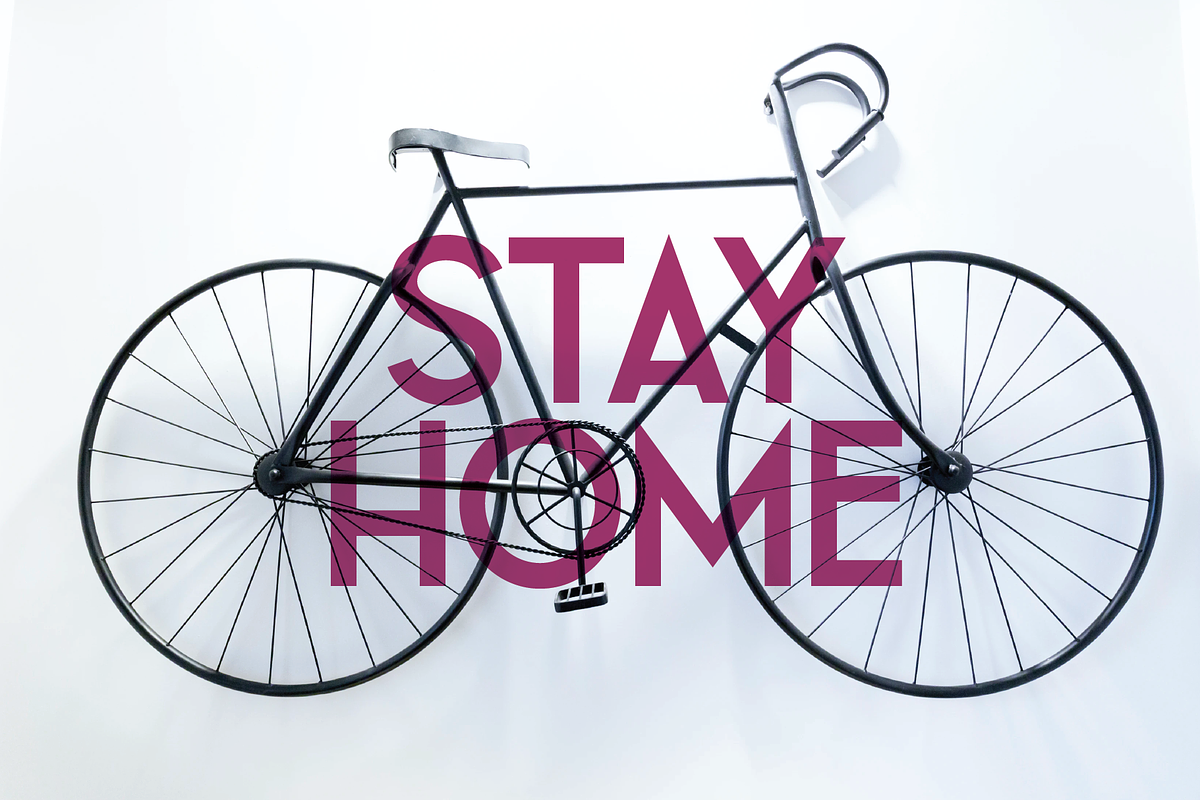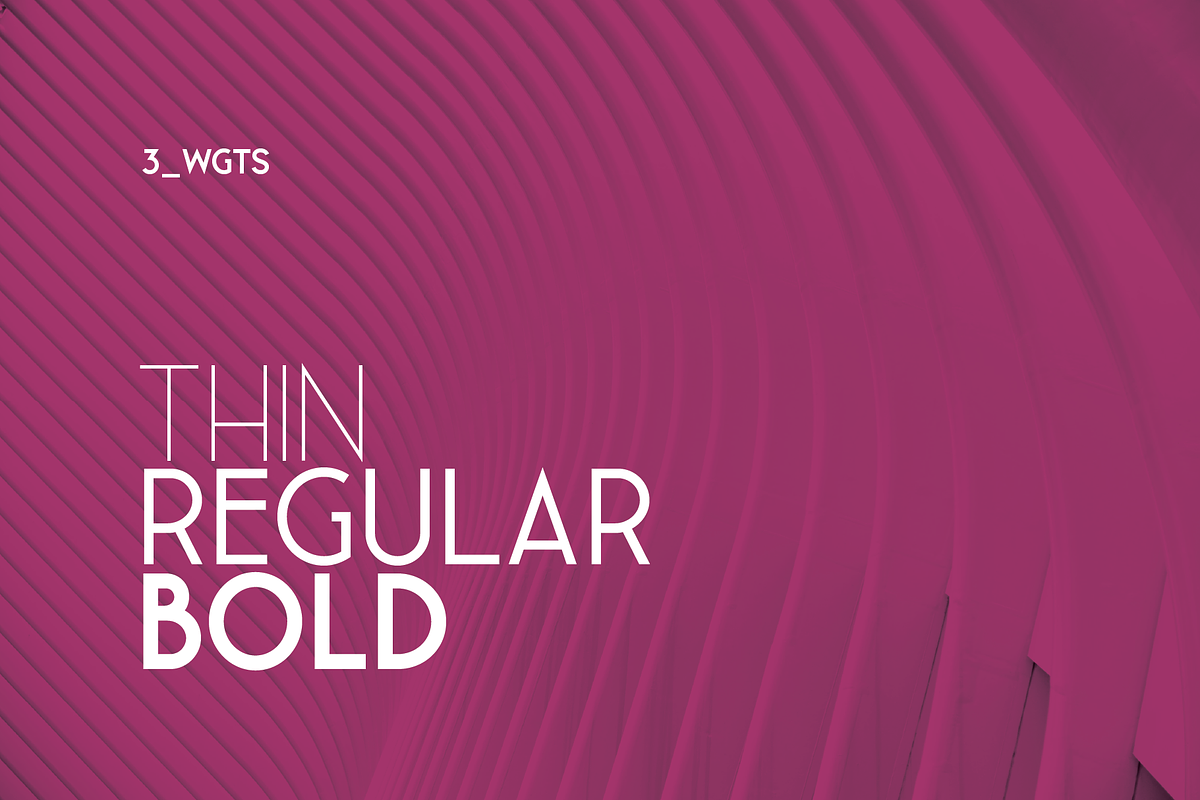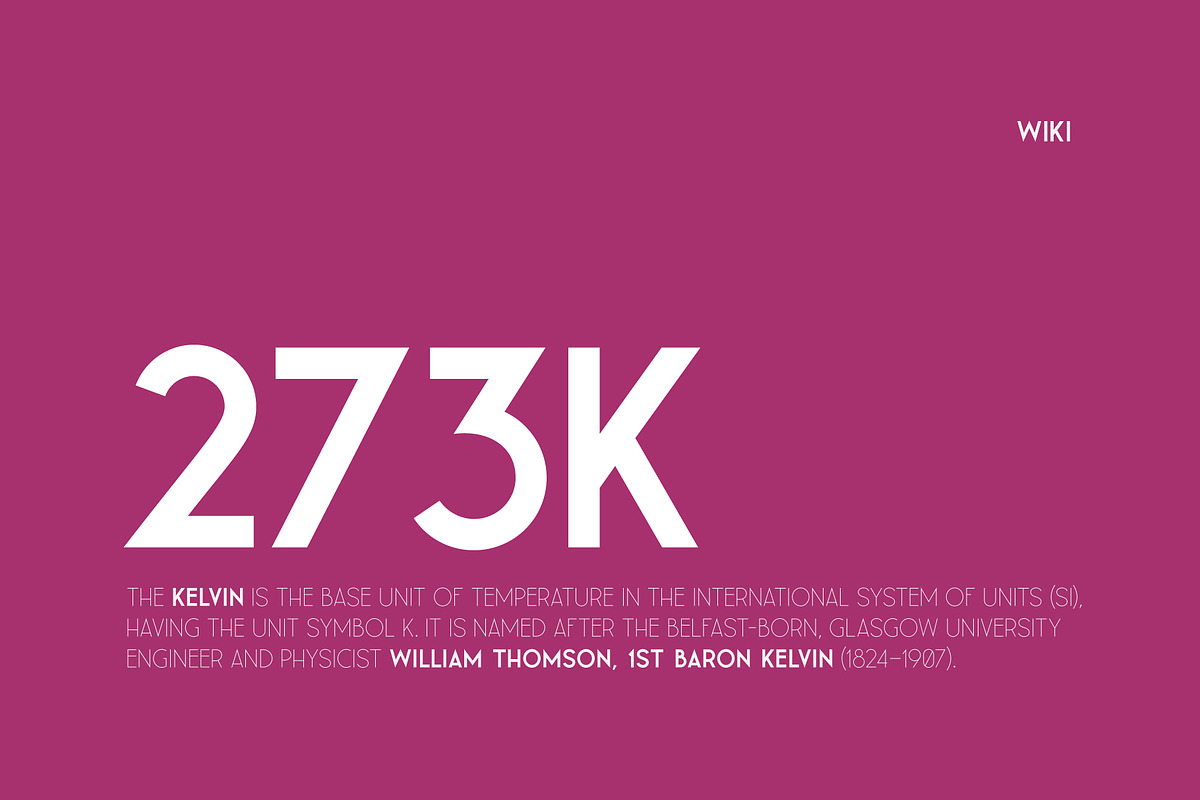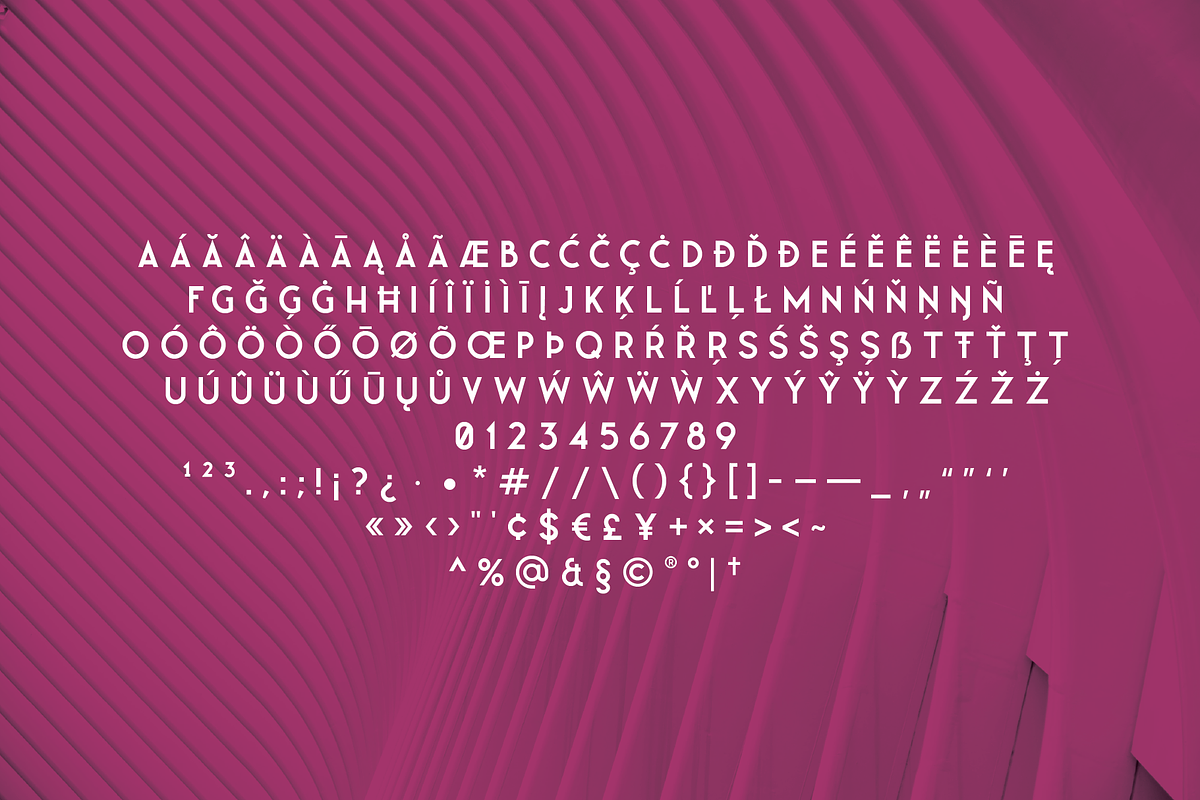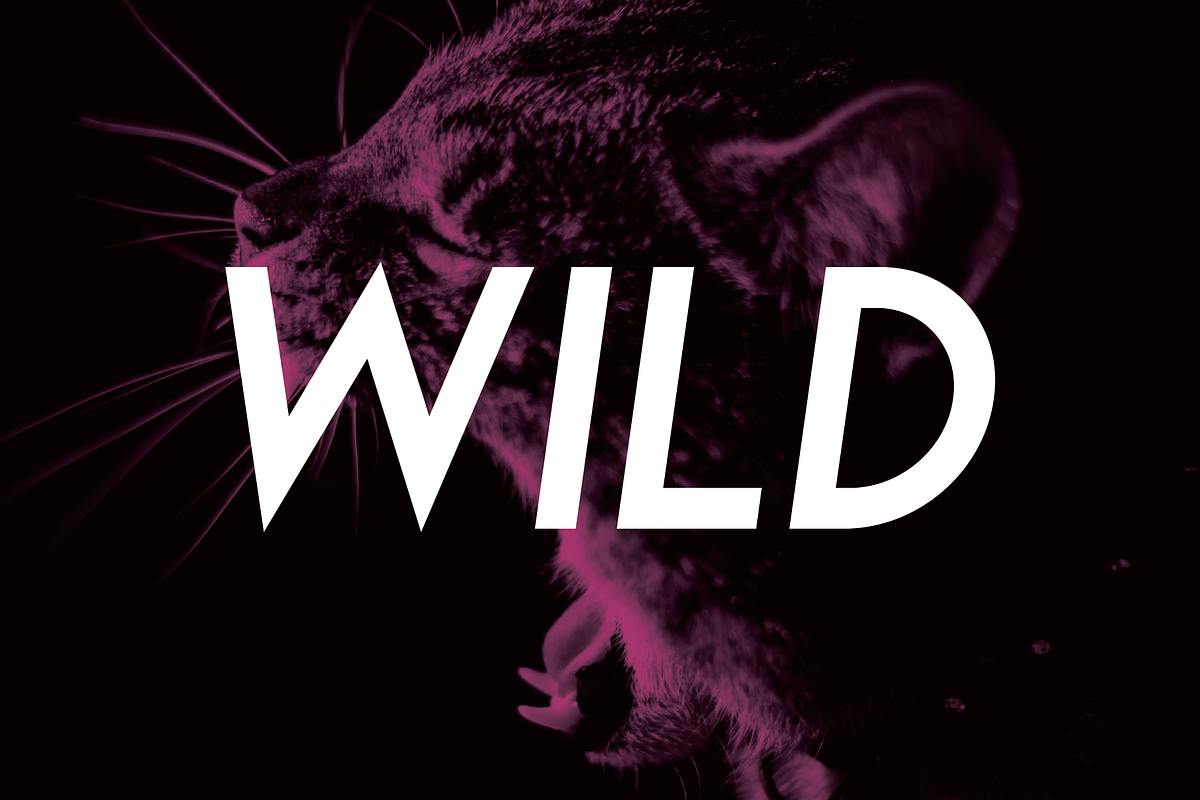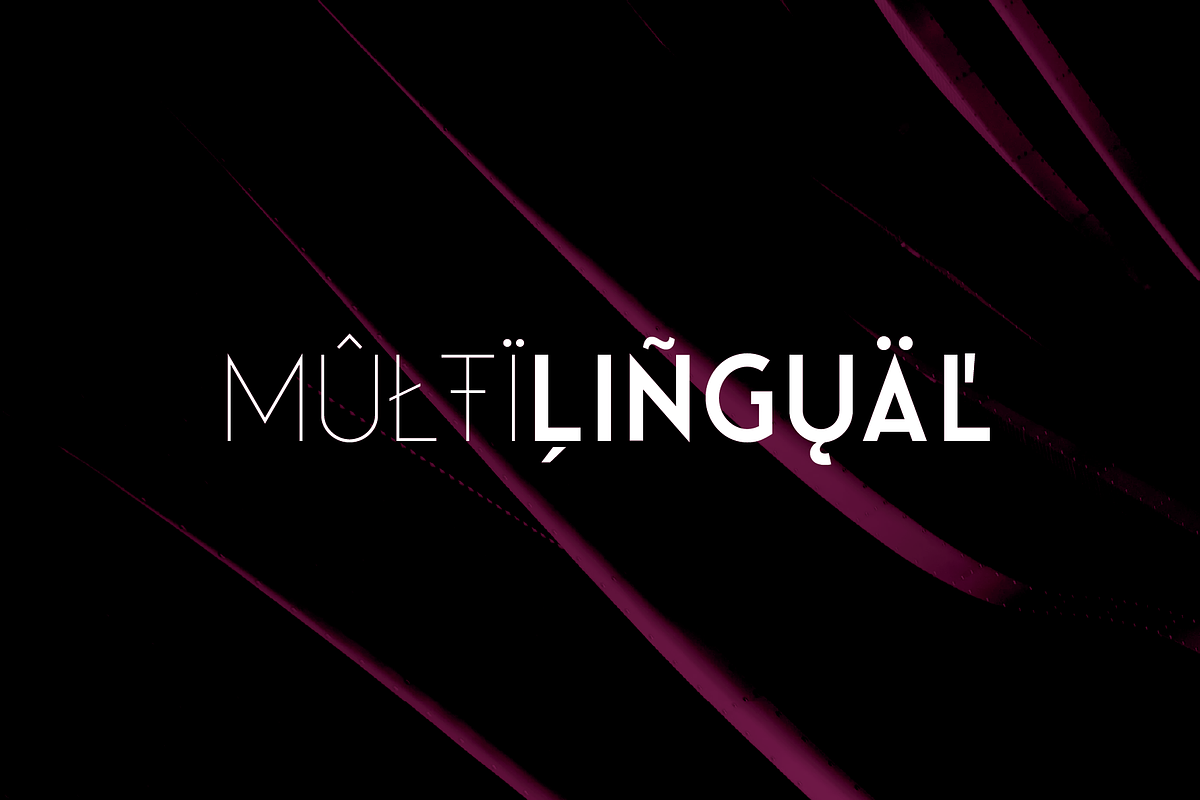
Leaner — SansSerif Font for Logo
Leaner — SansSerif Font for Logo by kulturrrno is a font selected for branding, posters, packaging, typography.
- "Leaner" is uppercase sans-serif typeface.
Why Leaner — SansSerif Font for Logo is worth a look
Leaner — SansSerif Font for Logo by kulturrrno fits naturally into Branding, posters, packaging, typography.